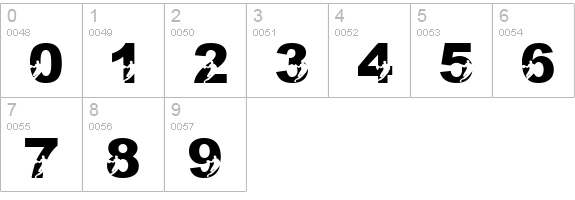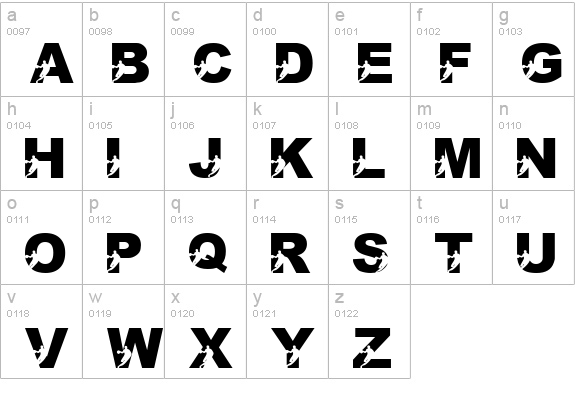
LMS I Love This Game Font Details
Introducing LMS I Love This Game font - a bold and energetic typeface that captures the essence of passion and enthusiasm for the game. This font is the perfect choice for all sports-related projects, from team logos and jerseys to posters and banners. With its dynamic and eye-catching design, LMS I Love This Game font adds a touch of excitement and energy to any visual composition. Its strong and confident letterforms convey a sense of determination and drive, making it an ideal choice for representing the spirit of competition. What makes LMS I Love This Game font even more appealing is that it is freely available to download at FontsMarket.com. This means that you can easily access this fantastic font without spending a penny. Whether you are a professional designer or a hobbyist, this font allows you to bring your sports-themed projects to life without any financial limitations. The versatility of LMS I Love This Game font is truly remarkable. Its bold and impactful appearance makes it suitable for a wide range of applications, including sports events, sports bars, sports blogs, and even personal projects celebrating your love for the game. This font will undoubtedly make a lasting impression on your audience and leave them inspired. So why wait? Download LMS I Love This Game font for free at FontsMarket.com and let your creativity soar. Whether you're designing for a local sports team or simply expressing your passion for the game, this font will undoubtedly add a touch of excitement and professionalism to your work. Don't miss out on this incredible opportunity to enhance your design projects with a font that truly captures the spirit of the game.